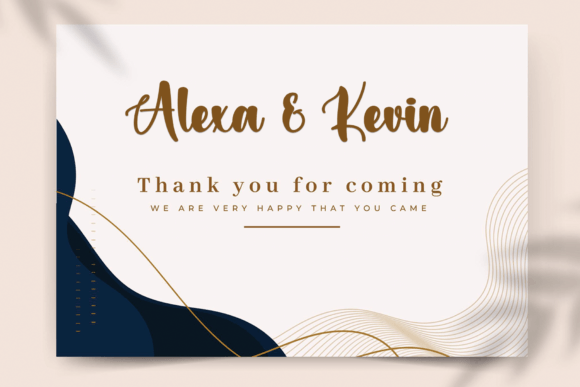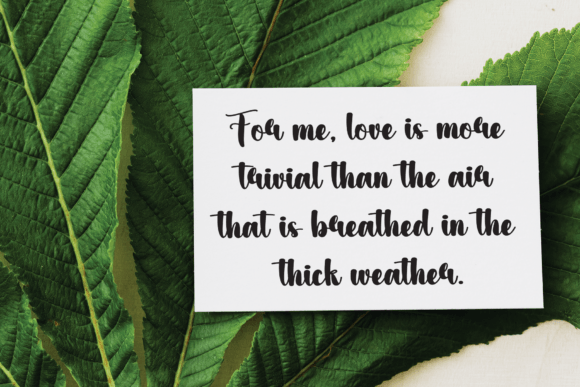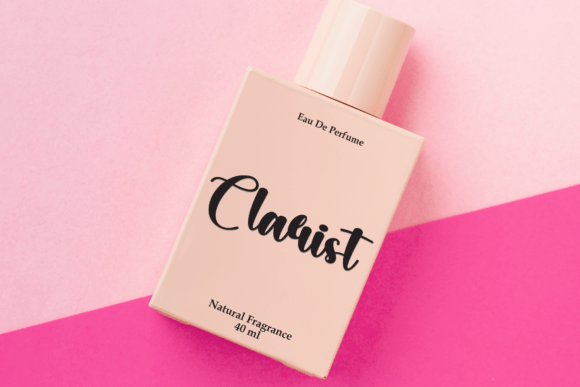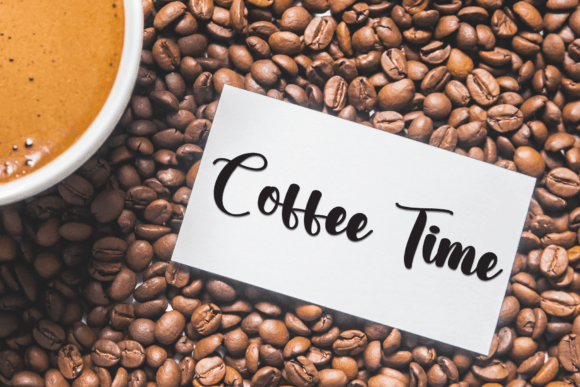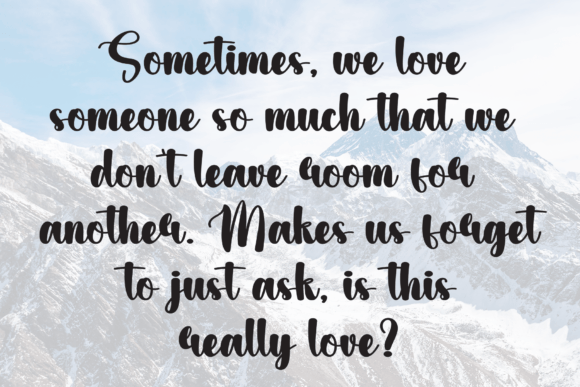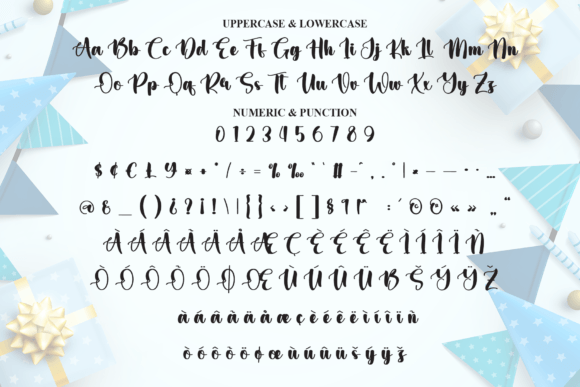
Introduction to Hey Birthday Font
Hey Birthday is a trendy handwritten font with a contemporary atmosphere and impeccable form, inspired by timeless classic calligraphy.
It will add elegance and class to any of your design projects .
Key Features of Hey Birthday Font